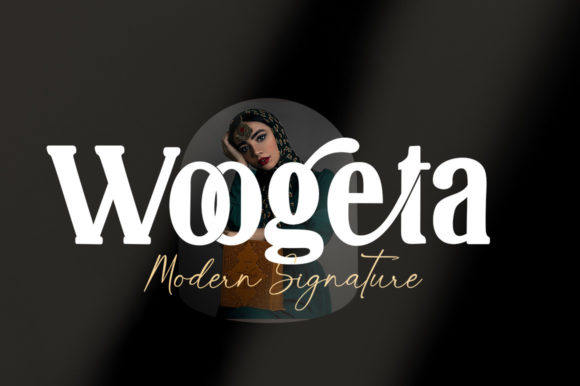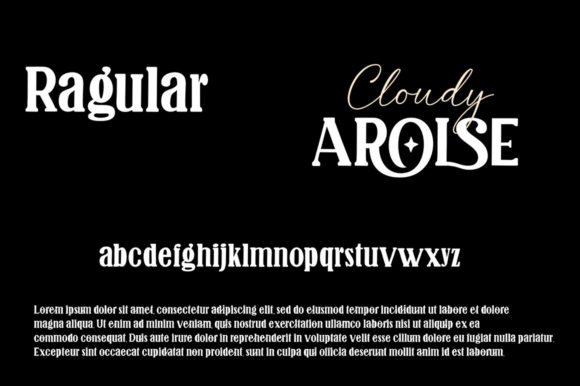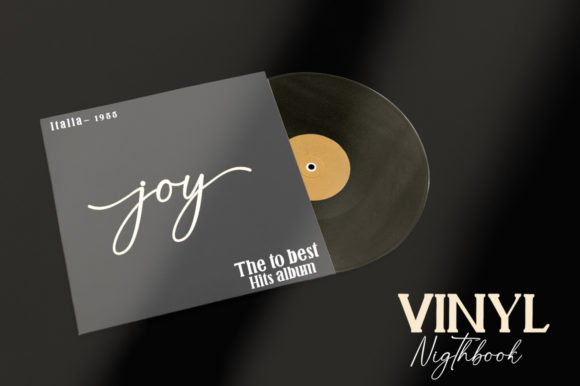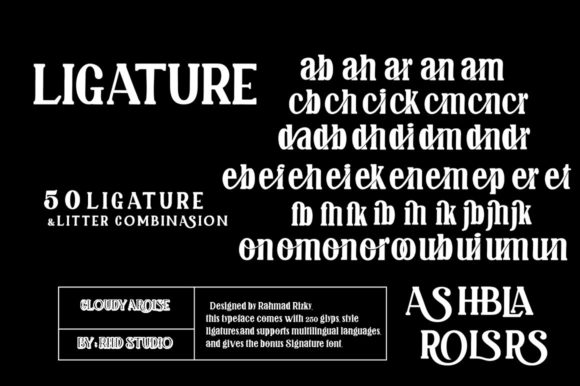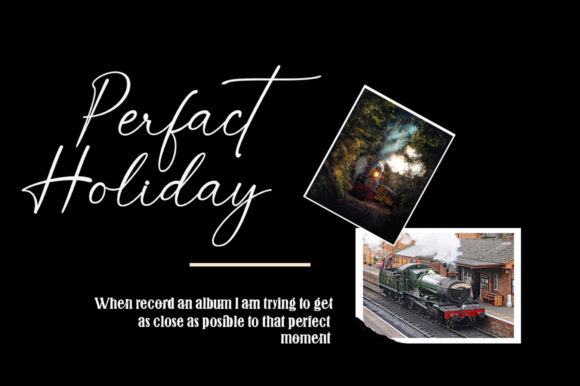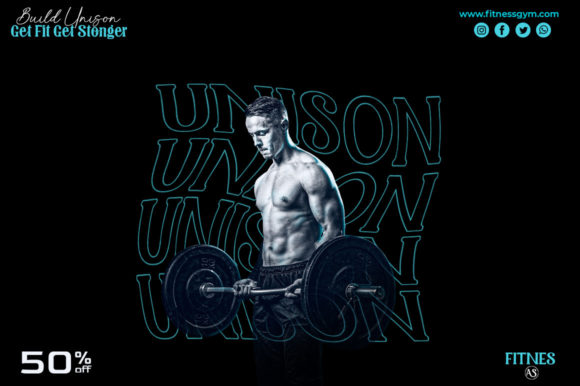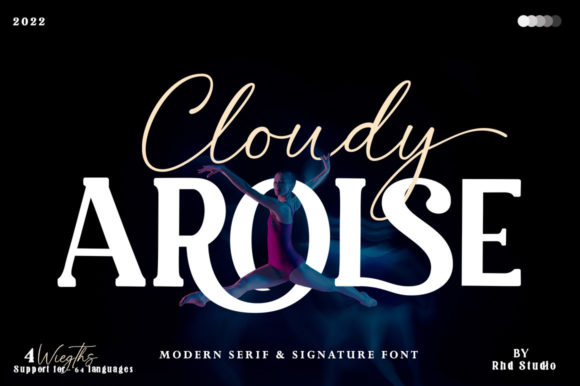
Introducing Cloudy Arolse Font: Elevate Your Designs with Style
Are you on the hunt for a font that adds a touch of elegance and sophistication to your projects? Look no further than Cloudy Arolse, a stunning duo font that combines the classic charm of serif and script fonts. This versatile font is perfect for designers and crafters seeking to make a statement with their work.
What Makes Cloudy Arolse Font Special?
Cloudy Arolse is more than just a font – it’s a design powerhouse. This stylish duo font includes both serif and script versions, allowing you to mix and match to create visually appealing text combinations. The result is a unique and captivating visual identity that sets your projects apart from the rest.
One of the standout features of Cloudy Arolse is its PUA (Private Use Area) encoding. This means that you can easily access all the glyphs and swashes, giving you complete creative control over your designs. With PUA encoding, you can effortlessly navigate the font’s extensive character set, including:
- Alternate glyphs for added versatility
- Swashes to add a touch of elegance
- Ligatures for a more refined look
Cloudy Arolse is an incredibly versatile font, suitable for a wide range of projects, including:
- Branding and logos: Create a lasting impression with a custom logo that exudes style and sophistication.
- Packaging design: Elevate your product packaging with a font that stands out on store shelves.
- Stationery and invitations: Add a touch of elegance to your wedding invitations, business cards, and letterheads.
- Digital designs: Use Cloudy Arolse in your website headers, social media graphics, and more to create a cohesive brand identity.
Why Choose Cloudy Arolse Font?
With so many fonts available, why choose Cloudy Arolse? Here are just a few compelling reasons:
- Unique style: Cloudy Arolse boasts a distinctive style that will set your designs apart from the crowd.
- Ease of use: The PUA encoding makes it easy to access and use the font’s extensive character set.
- High-quality design: Cloudy Arolse is crafted with attention to detail, ensuring a crisp and clean appearance in your designs.
Tips for Using Cloudy Arolse Font
To get the most out of Cloudy Arolse, here are some expert tips:
- Experiment with combinations: Mix and match the serif and script versions to create visually appealing text combinations.
- Play with swashes: Add a touch of elegance with swashes, but use them sparingly to avoid overwhelming your design.
- Adjust font sizes: Use different font sizes to create visual hierarchy and add depth to your designs.
Cloudy Arolse Font is a game-changer for designers and crafters seeking to elevate their projects with style and sophistication. With its unique duo font design, PUA encoding, and versatility, this font is sure to become a staple in your design toolkit. So why wait? Add Cloudy Arolse to your projects today and experience the transformative power of great typography!